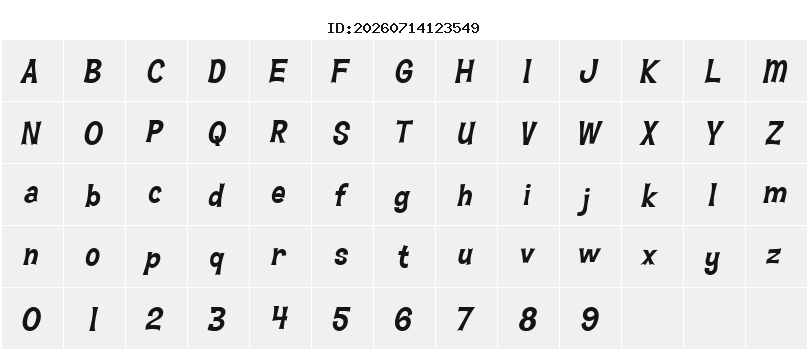
Hawaiian Aloha BTN Preview
• Font Name: Hawaiian Aloha BTN
• Font Style: BoldOblique
• Font ID: Hawaiian Aloha BTN BoldOblique
• Full Font Name: Hawaiian Aloha BTN BoldOblique
• PostScript Name: HawaiianAlohaBTNBoldOblique
• Character Count: 264
About Hawaiian Aloha BTN.ttf
Hawaiian Aloha BTN.ttf is a modern, elegant sans-serif font designed for ultimate readability and visual harmony. Perfect for branding, headlines, web design, and print materials.